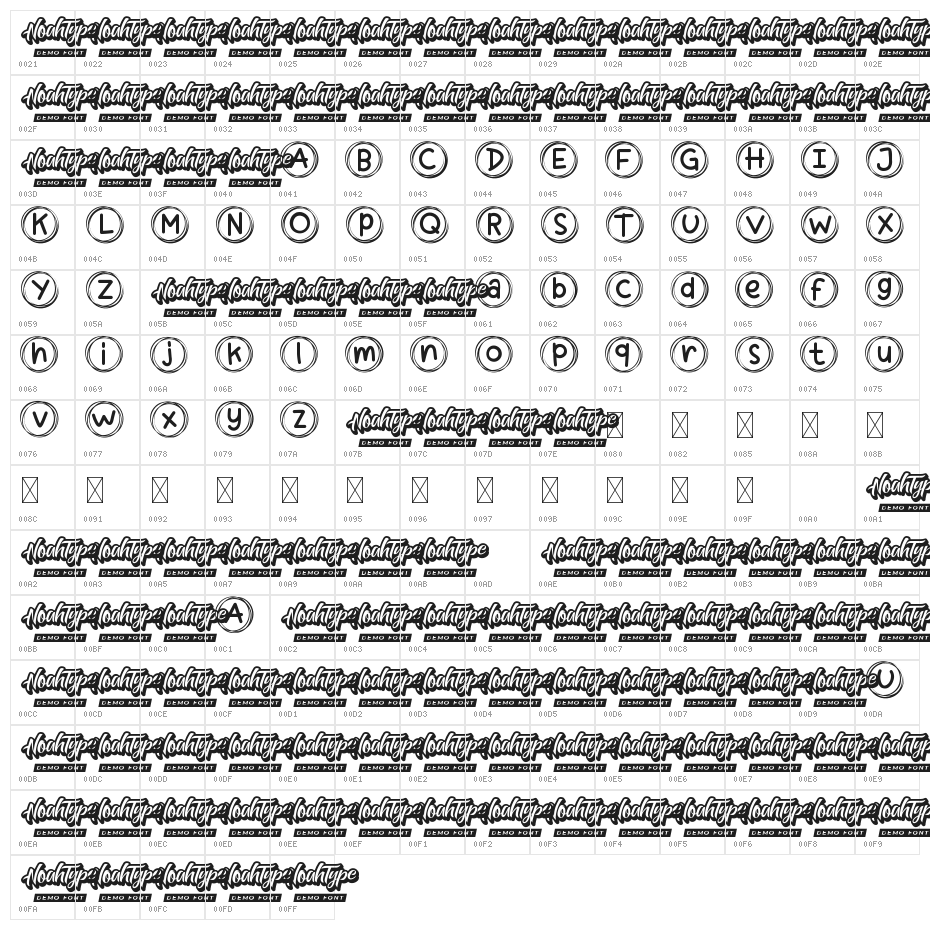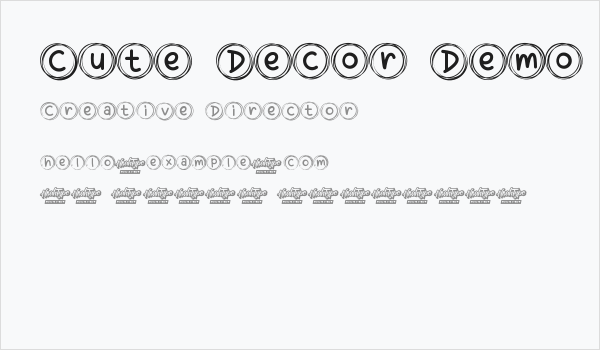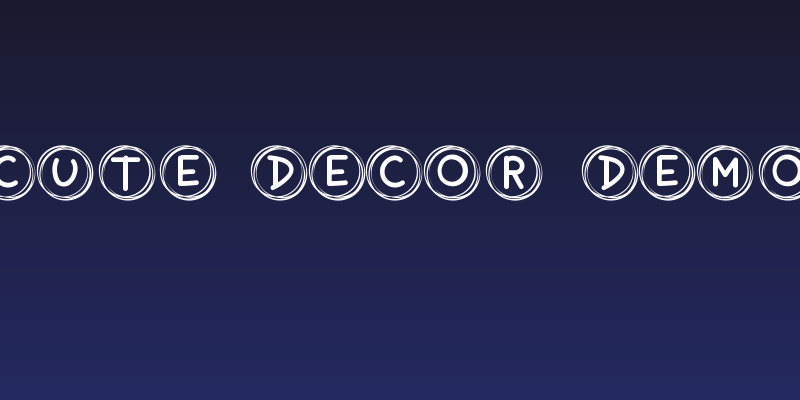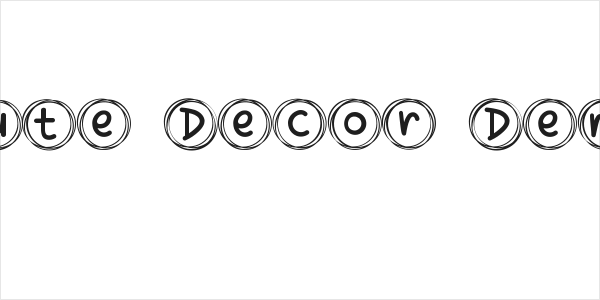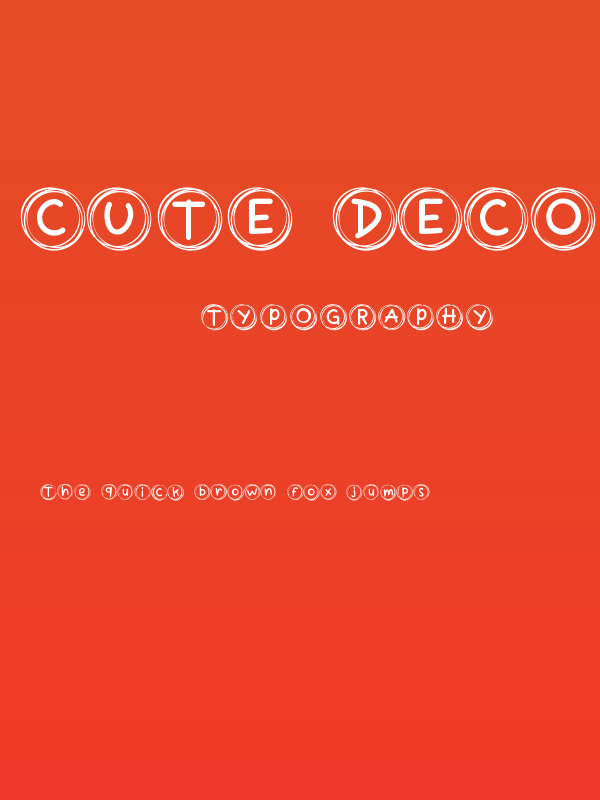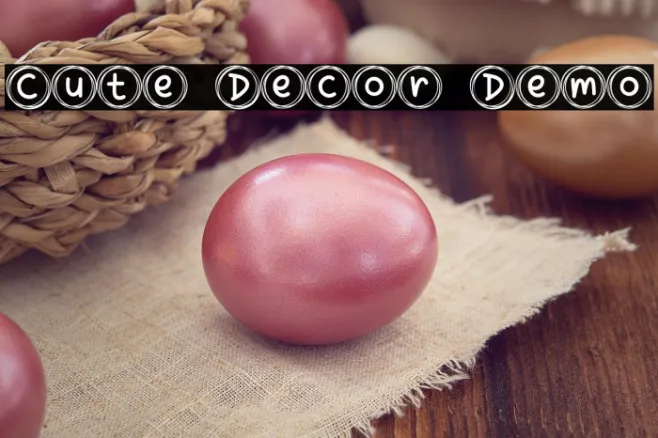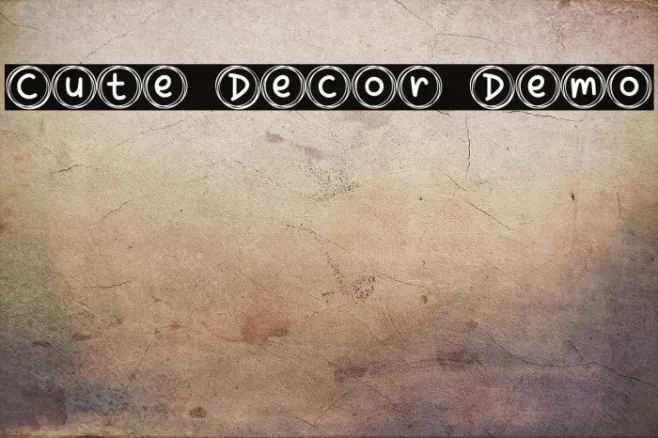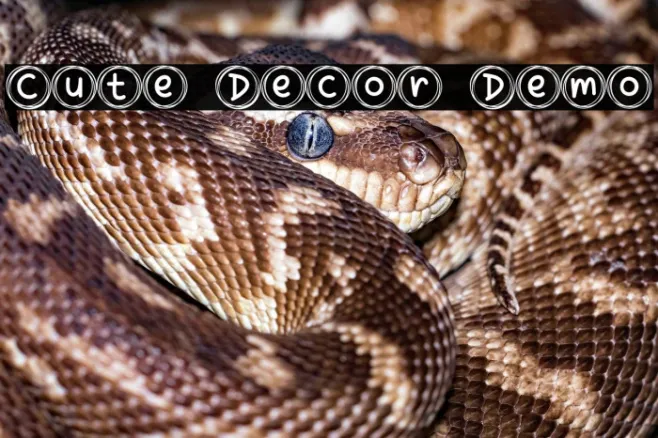
Cute Decor Demo Font
Cute Decor Demo Description
This playful and whimsical font features letters encased in circular outlines, giving it a unique and decorative appearance. The characters are bold and rounded, with a hand-drawn feel that adds a touch of charm and creativity. The consistent circular motif around each letter creates a cohesive and eye-catching design, making it ideal for projects that require a fun and engaging aesthetic. The font maintains a consistent weight throughout, ensuring readability while still offering a distinctive style. Its decorative nature makes it suitable for a variety of creative applications.
| Proposed Projects | Ideal for children's books, playful invitations, greeting cards, and creative branding projects. |